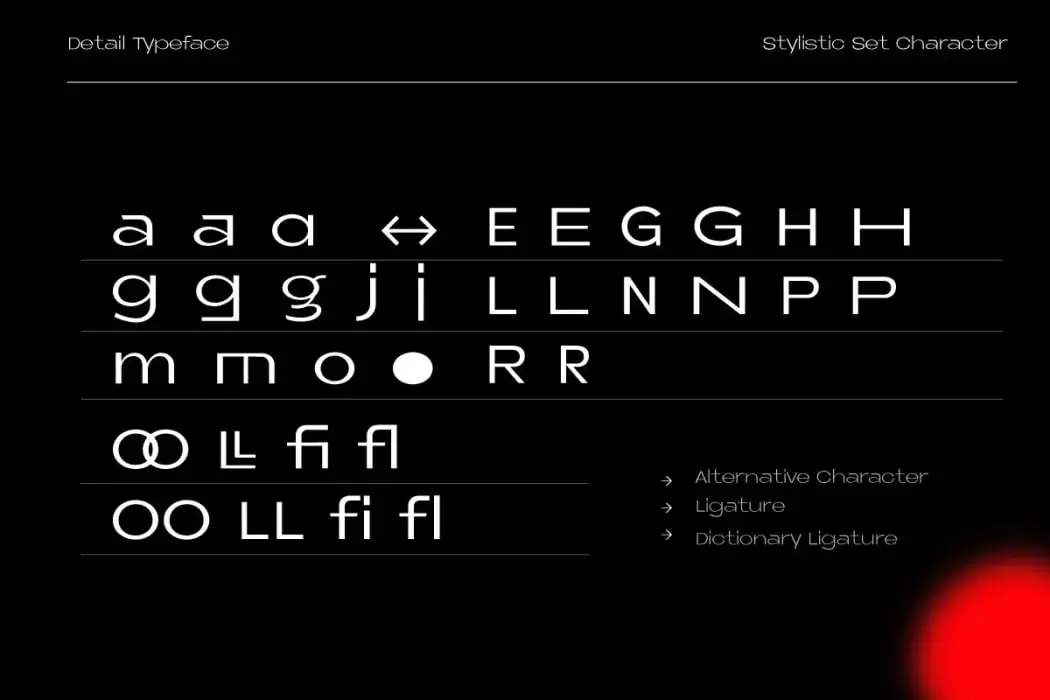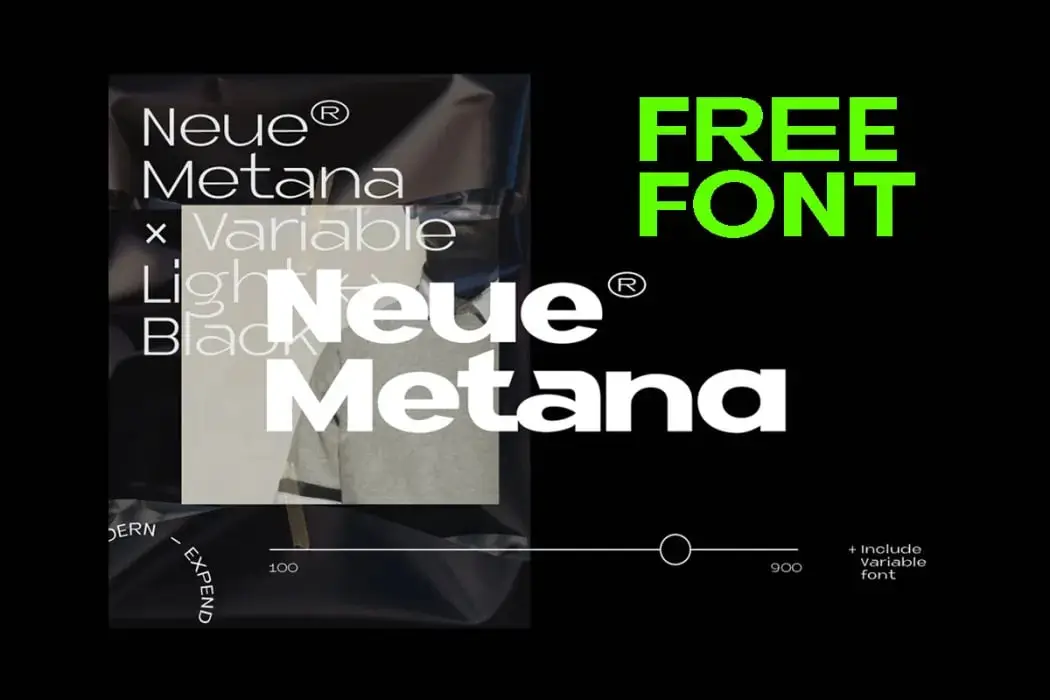
Introducing the Neue Metana Free Font, a versatile typeface that brings a modern touch to your design projects. With its clean lines and contemporary style, this font is perfect for a variety of applications, including branding, logos, web design, print materials, and user interfaces.
- Multiple weights for flexibility
- Stylish and modern design
- Easy to read at various sizes
- Supports multilingual characters
- Weights: Regular, Bold, Italic
- Ideal for headlines and body text
- Combine different weights for a dynamic look
- Utilize in both digital and print formats
Neue Metana Free Font